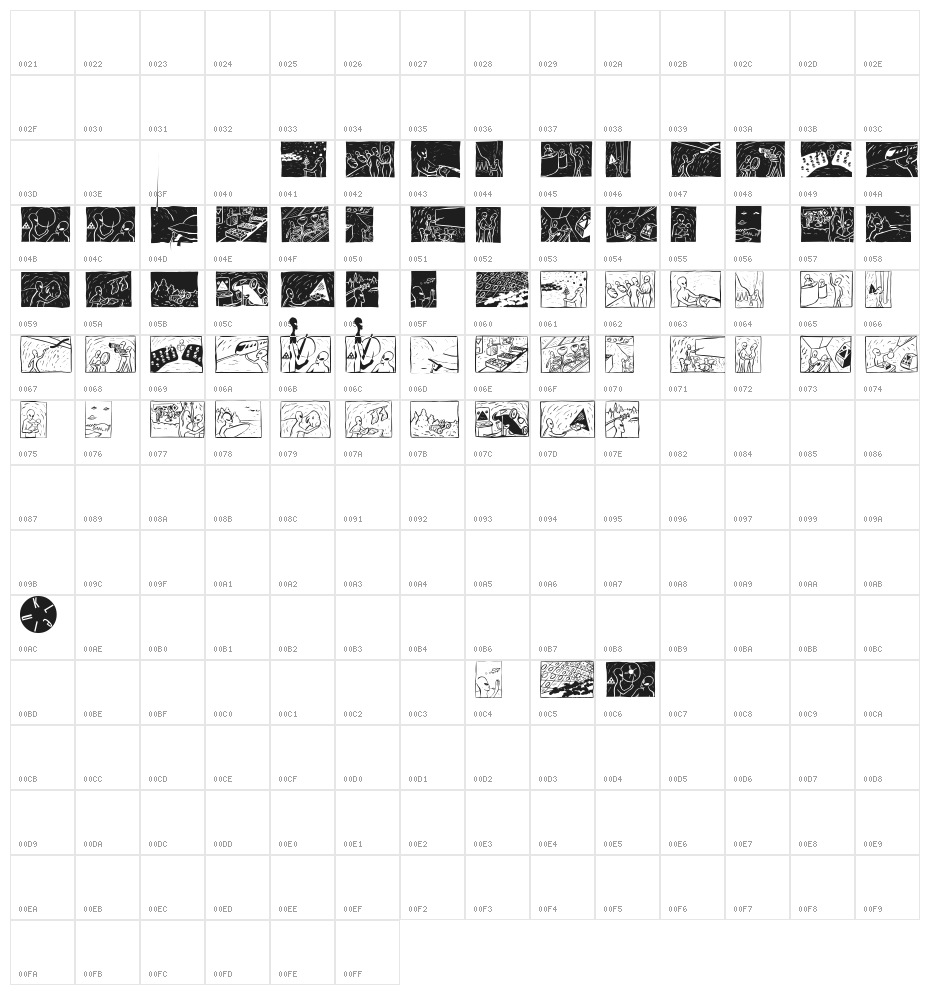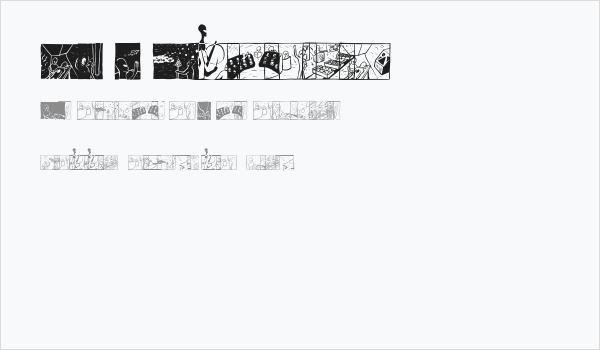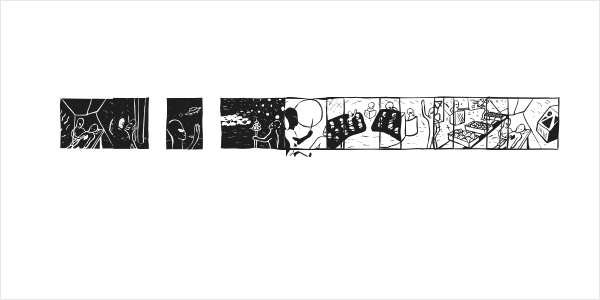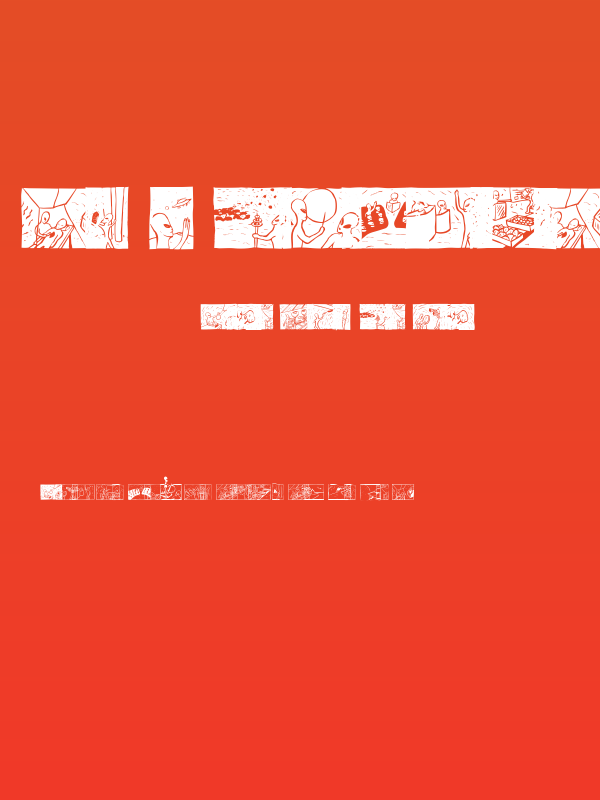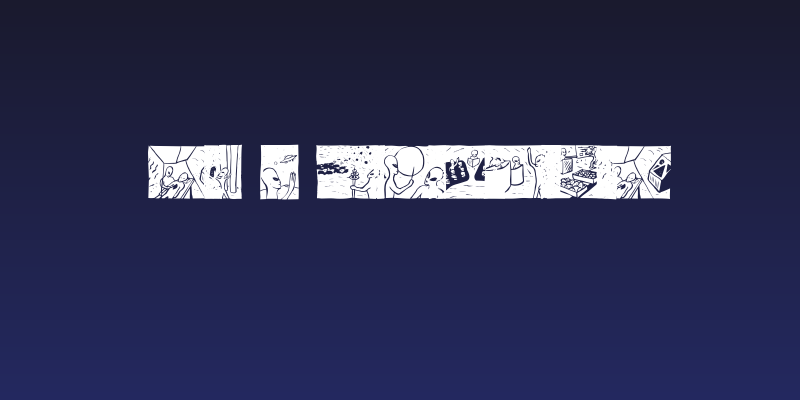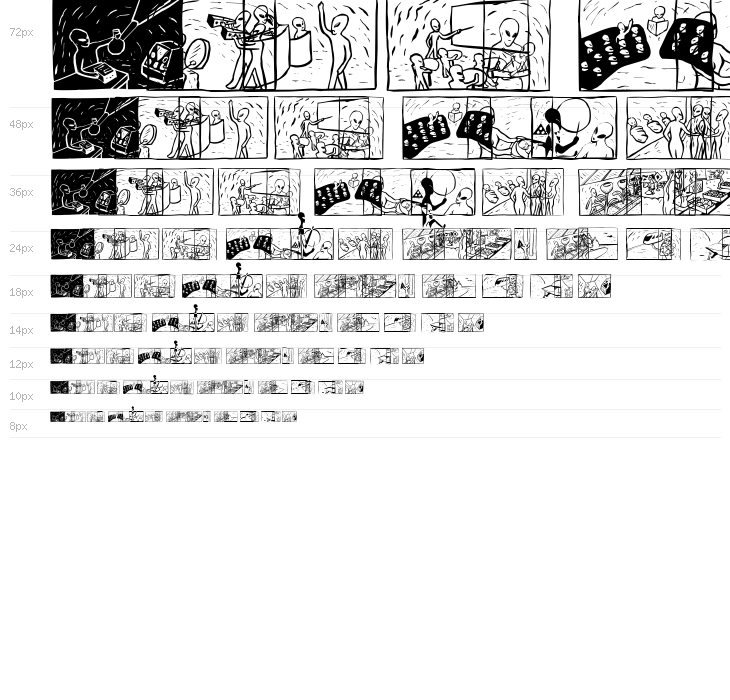
SF_Aliens Font
SF_Aliens Description
A highly decorative and illustrative font where each character is represented by a unique comic-style scene featuring aliens and outer space themes. The glyphs are rectangular panels filled with detailed line art, making each letter or symbol a miniature artwork rather than a traditional typographic form.
| Overall Style | Decorative, Comic, Sci-fi |
| Use Case | Logos, Headlines, Posters, Themed graphics |
| Proposed Projects | Children's books, sci-fi posters, themed party invitations, comic strips, novelty headlines. |